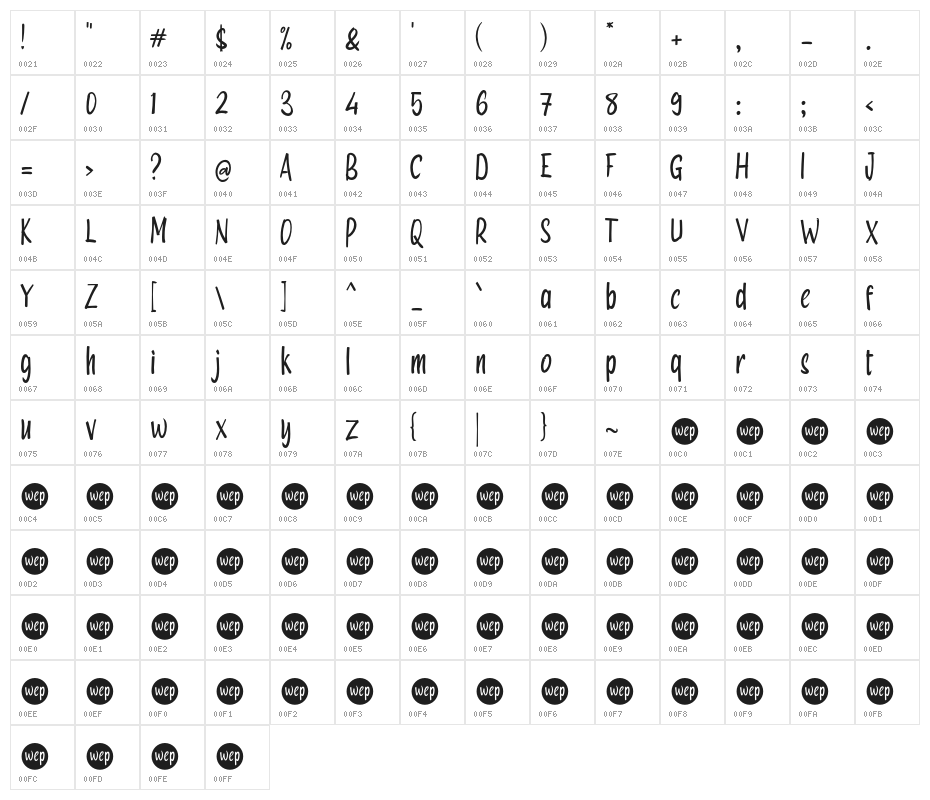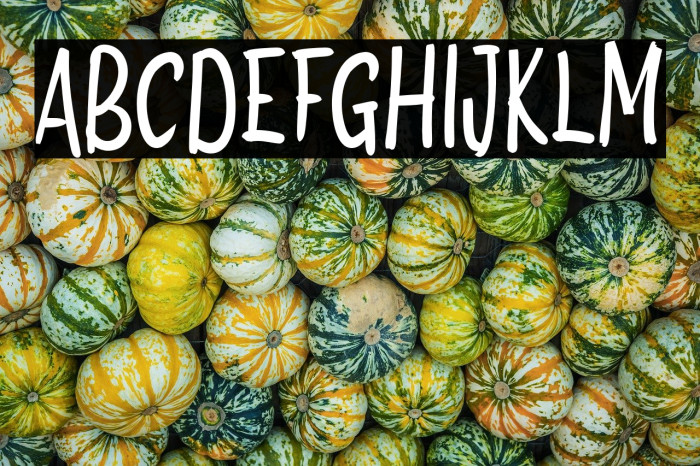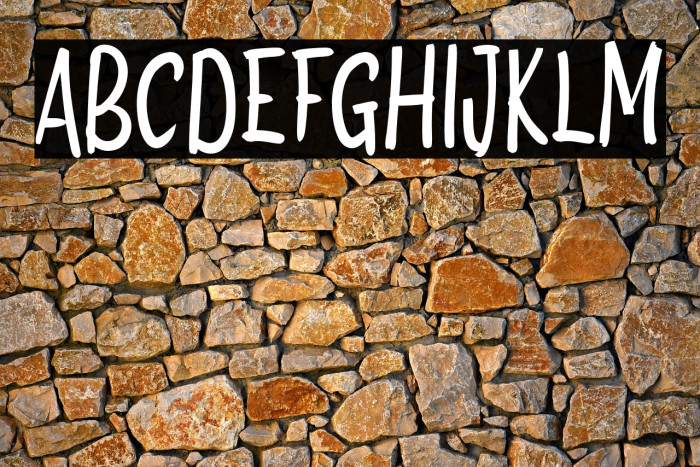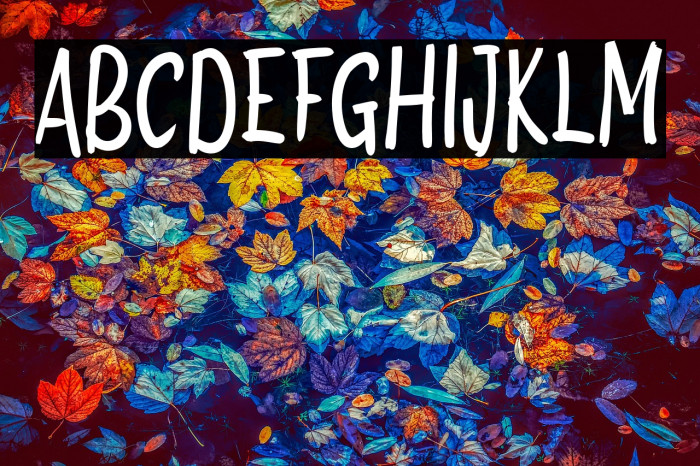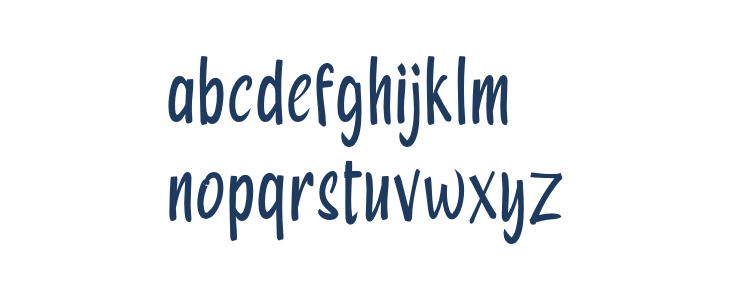
BESAR Font
BESAR Description
This font features a playful and informal handwritten style, characterized by its uneven strokes and casual appearance. The uppercase letters are bold and slightly condensed, while the lowercase letters maintain a consistent flow with a slight slant, adding to the handwritten feel. The numbers are clear and legible, matching the overall style of the letters. Special characters are creatively designed, maintaining the playful aesthetic. This font is ideal for projects that require a personal touch, such as invitations, greeting cards, or creative branding.
| Overall Style | Playful, Informal |
| Proposed Projects | Ideal for invitations, greeting cards, creative branding, and personal projects. |